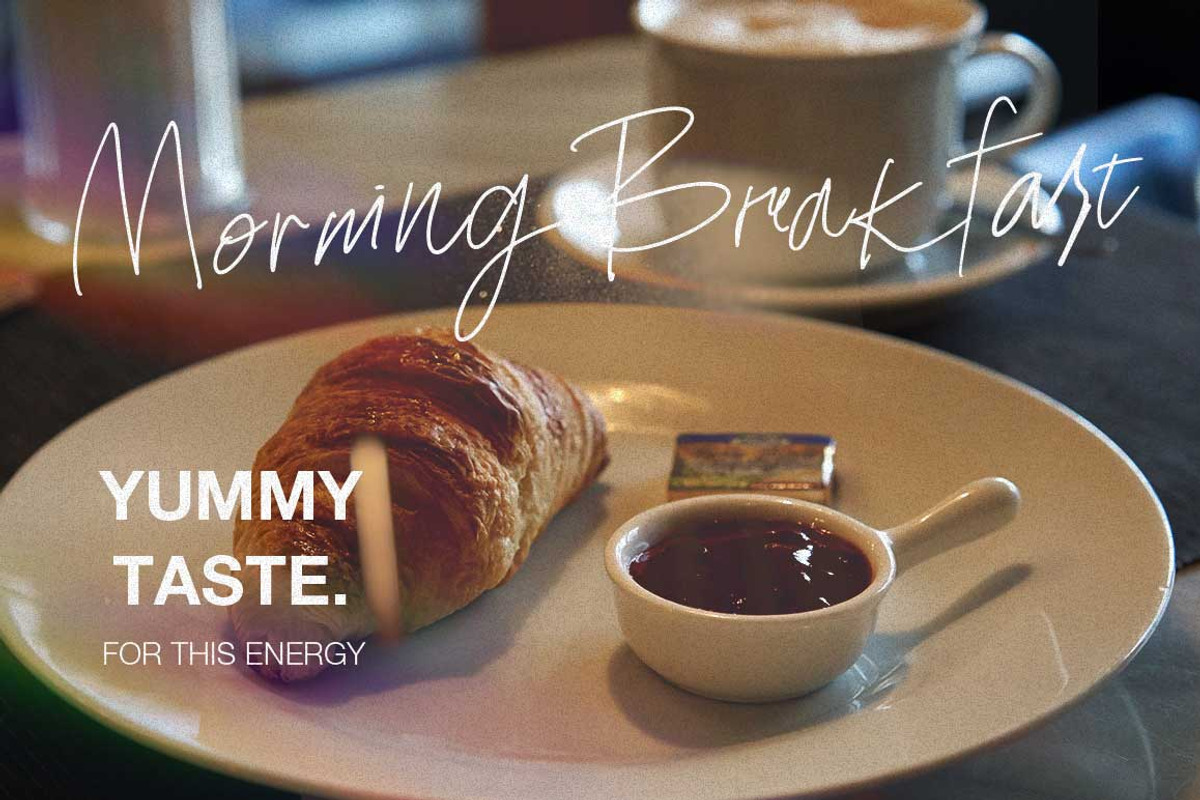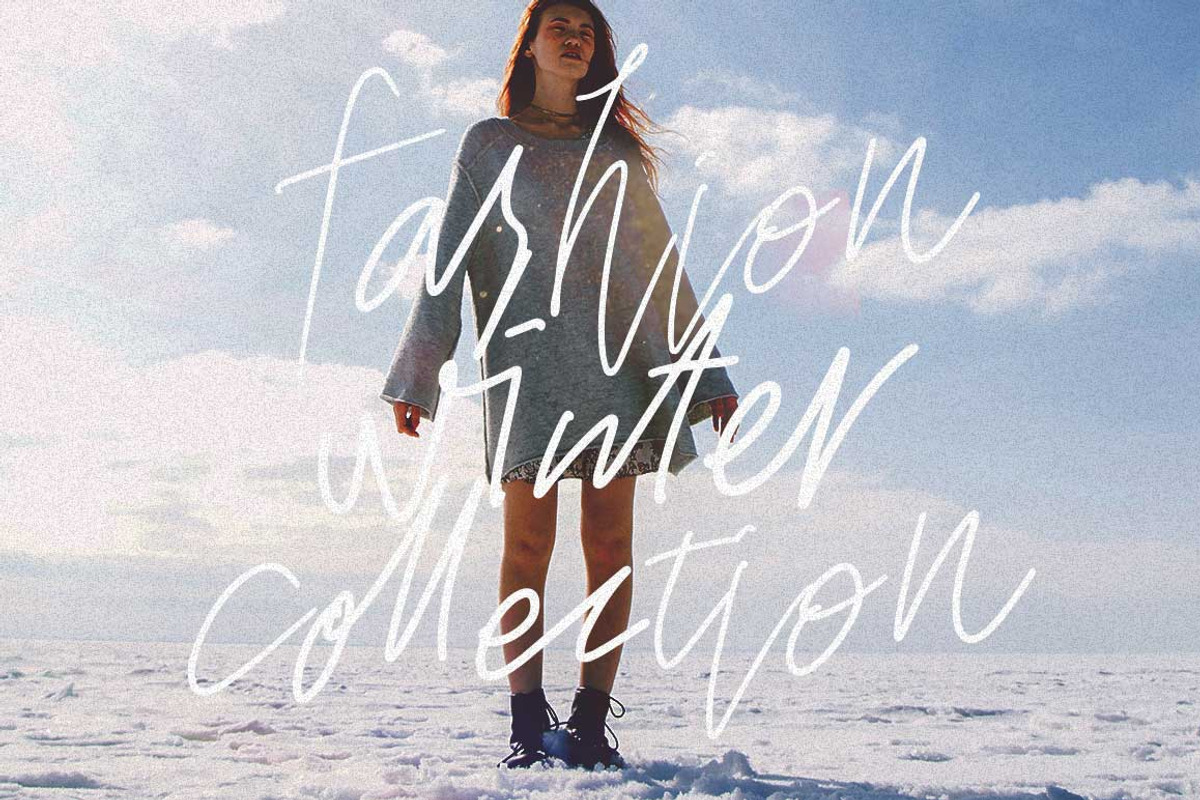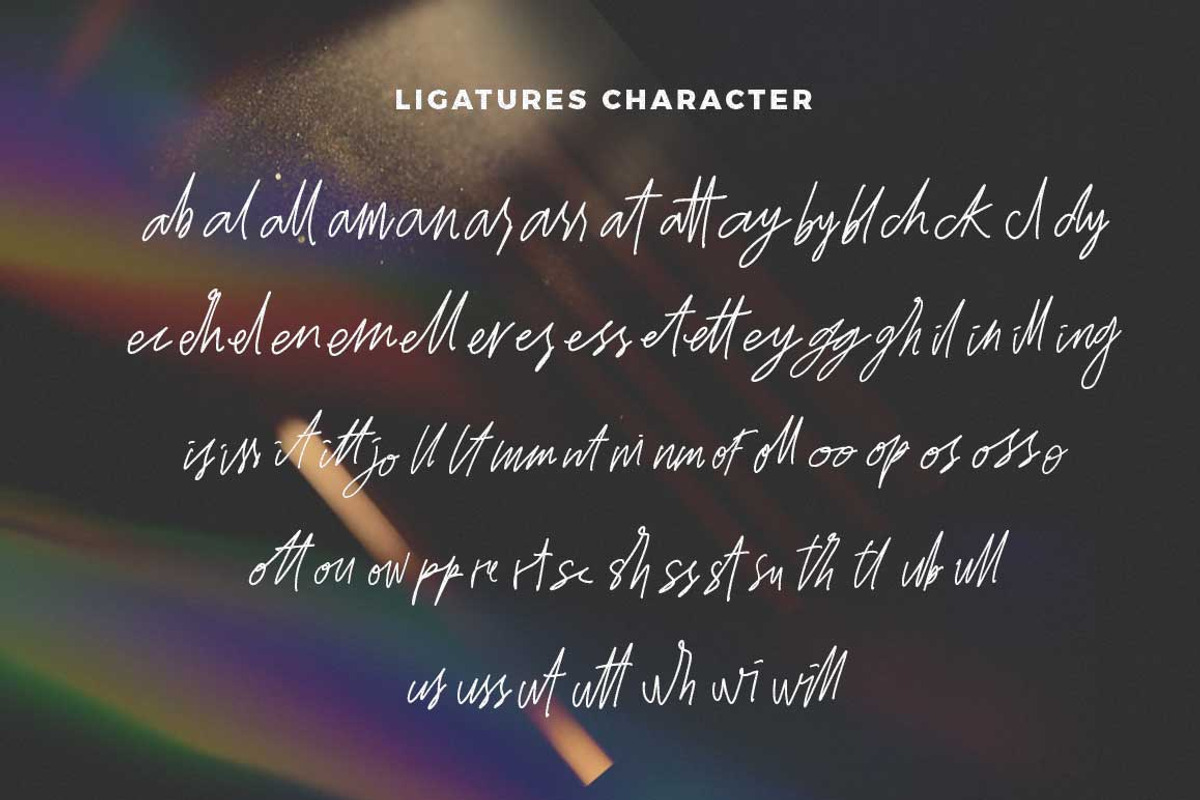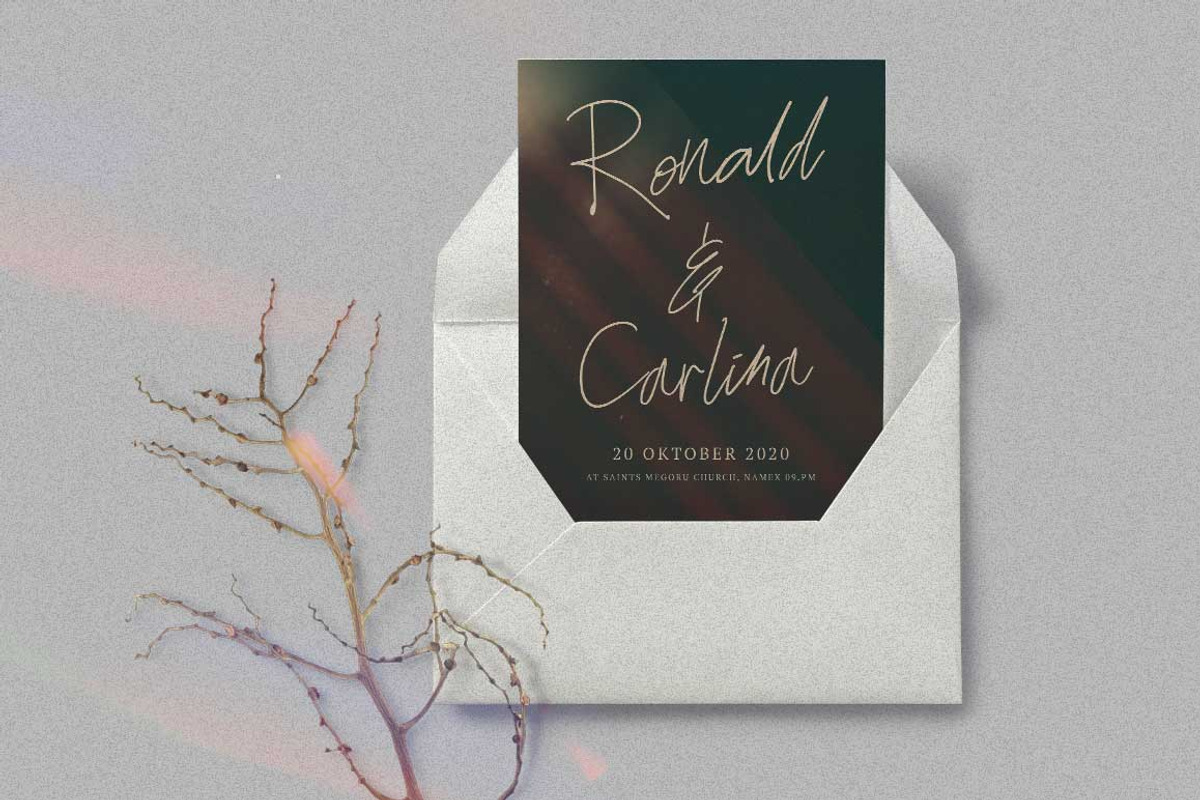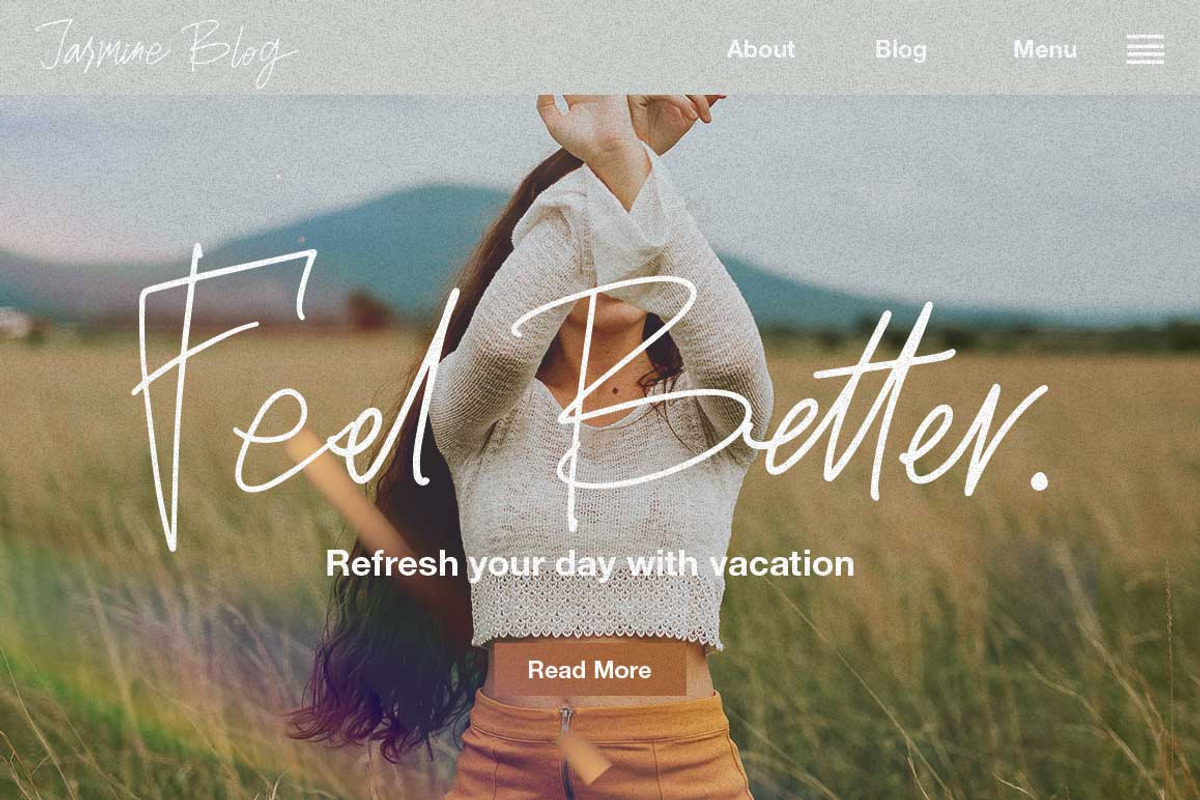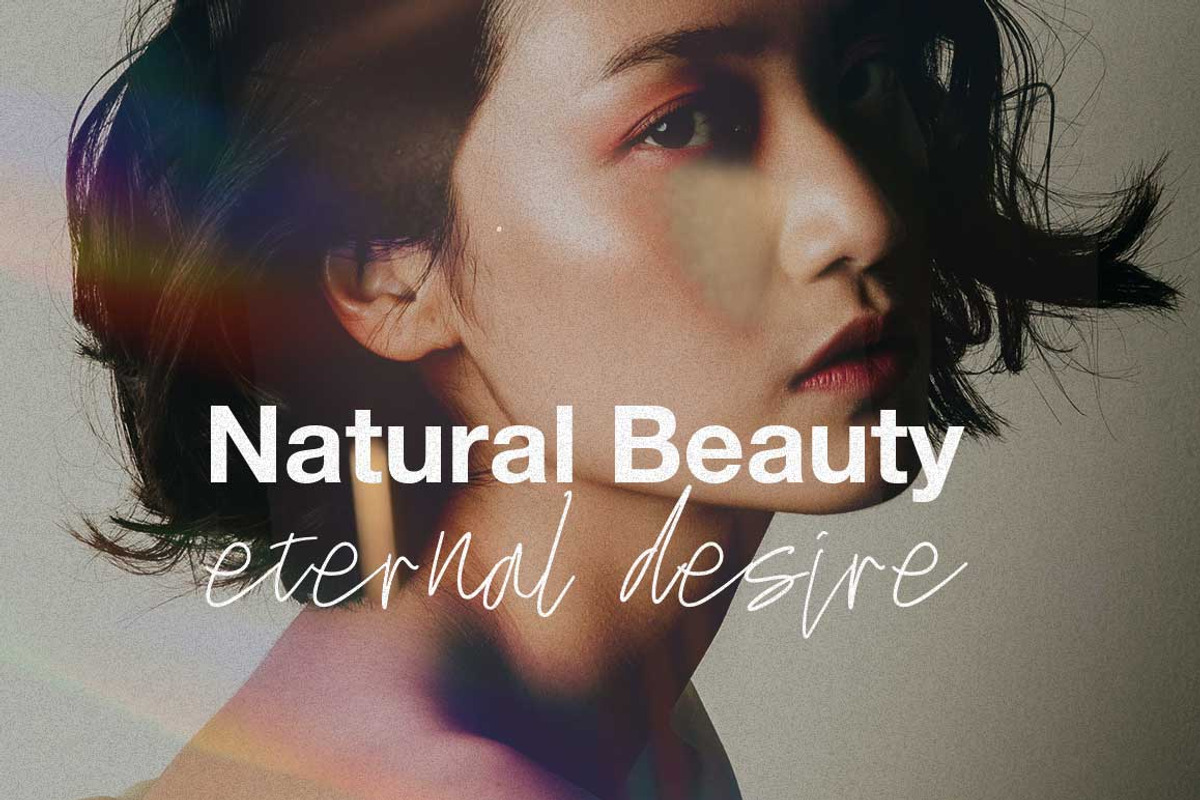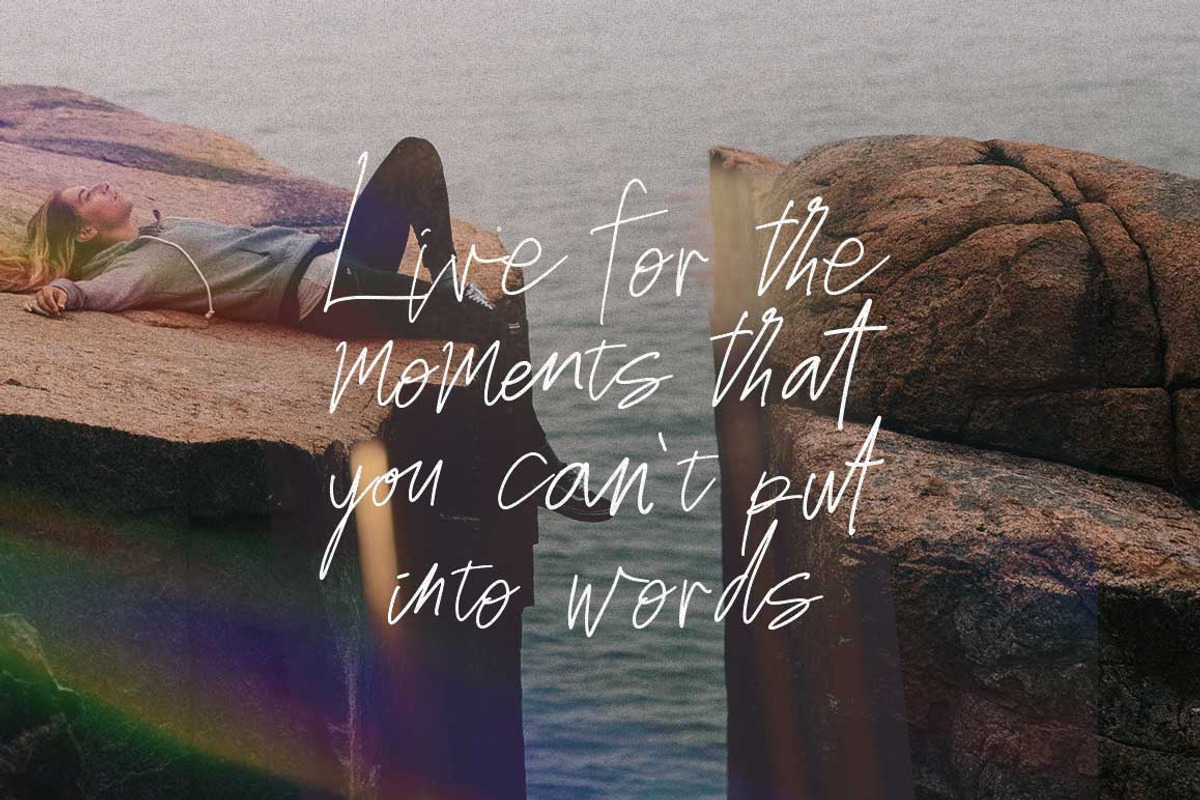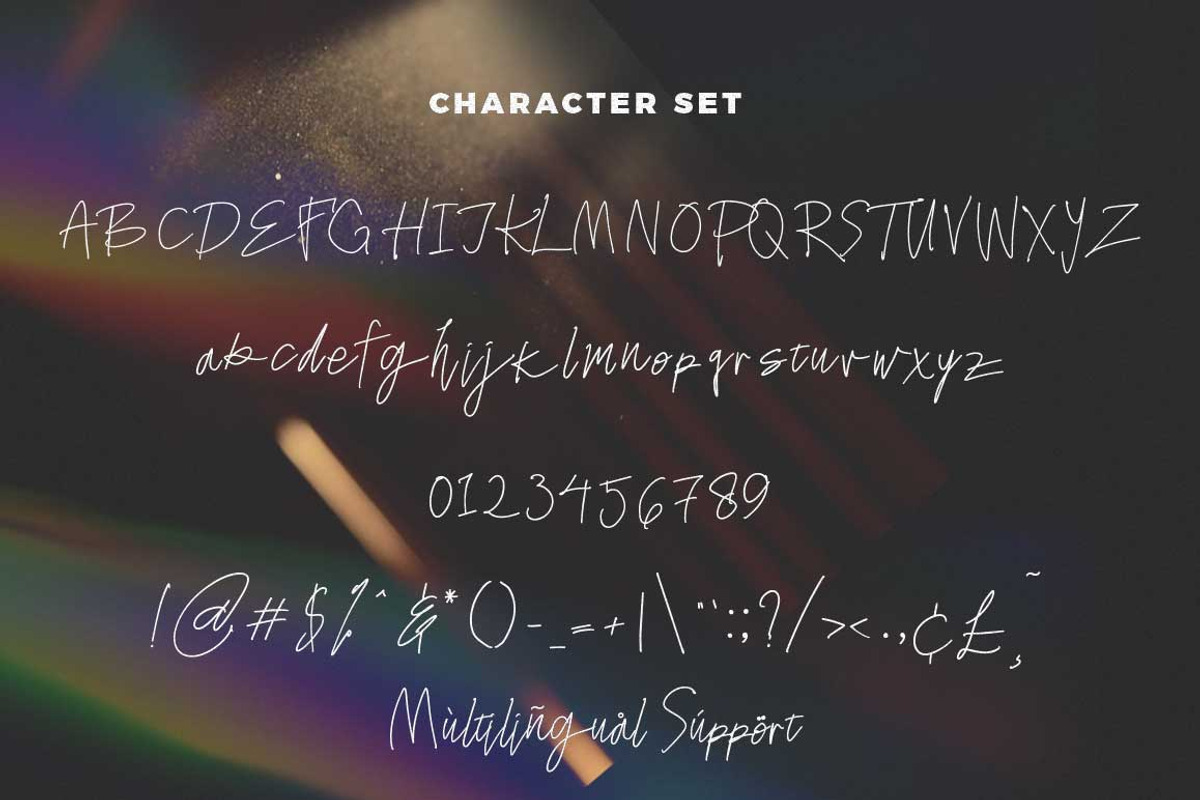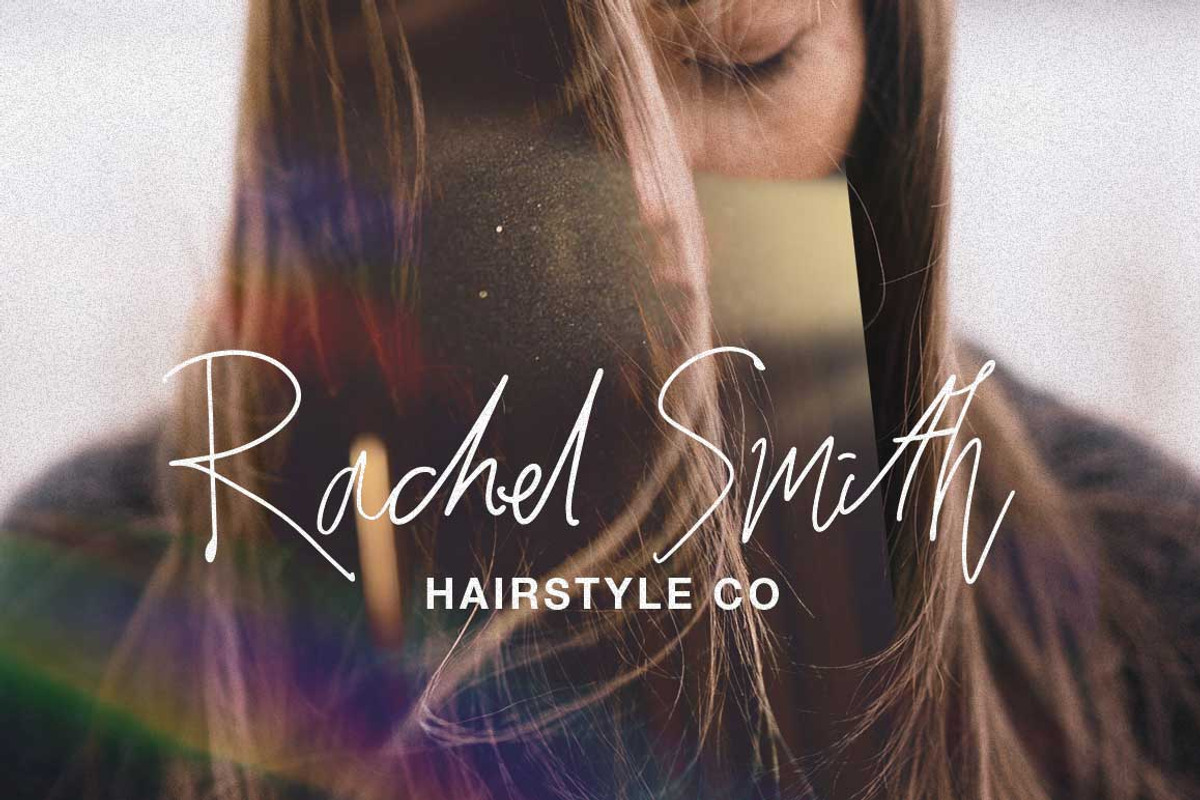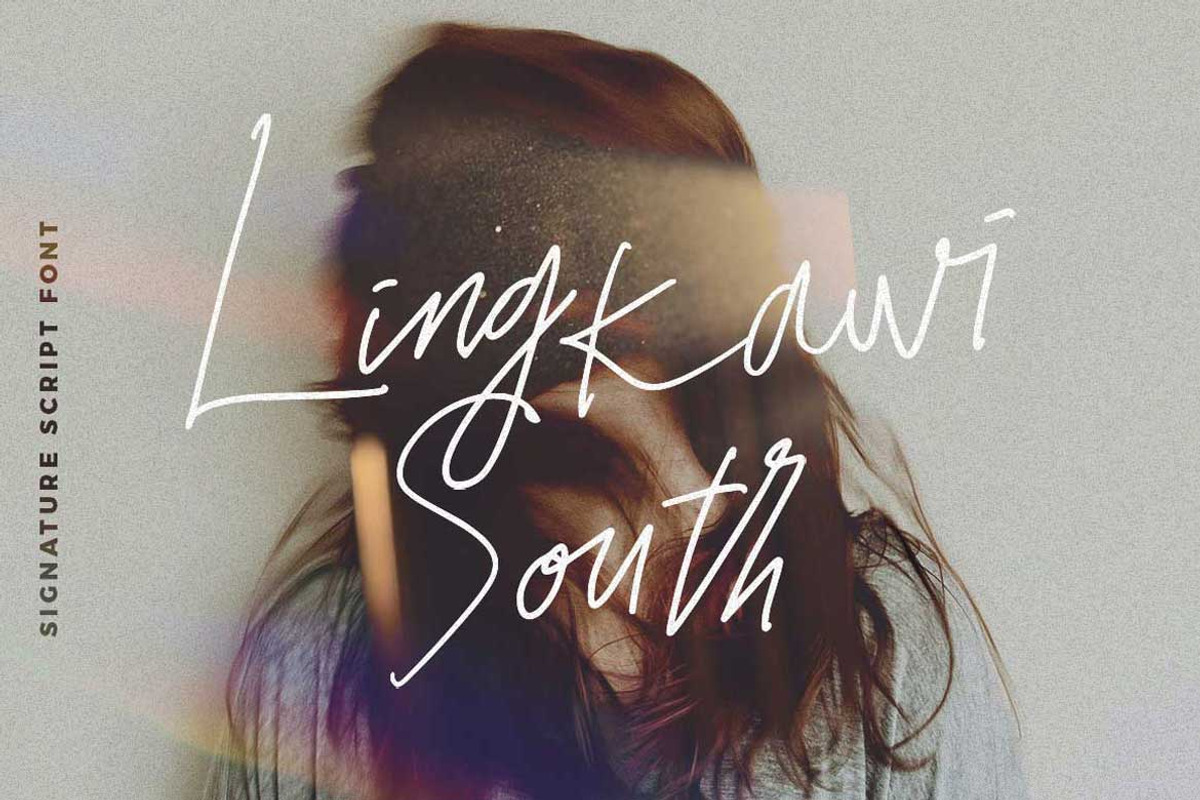
Lingkawi South - Signature Script
Lingkawi South | Signature Font Elegant with a calligraphy style, So beautiful on invitation like greeting cards, branding materials, business cards, quotes, posters, and more!
- Hundred of glyphs
- Alternates and Ligatures
- Punctional
- Fonts include Multilingual Support